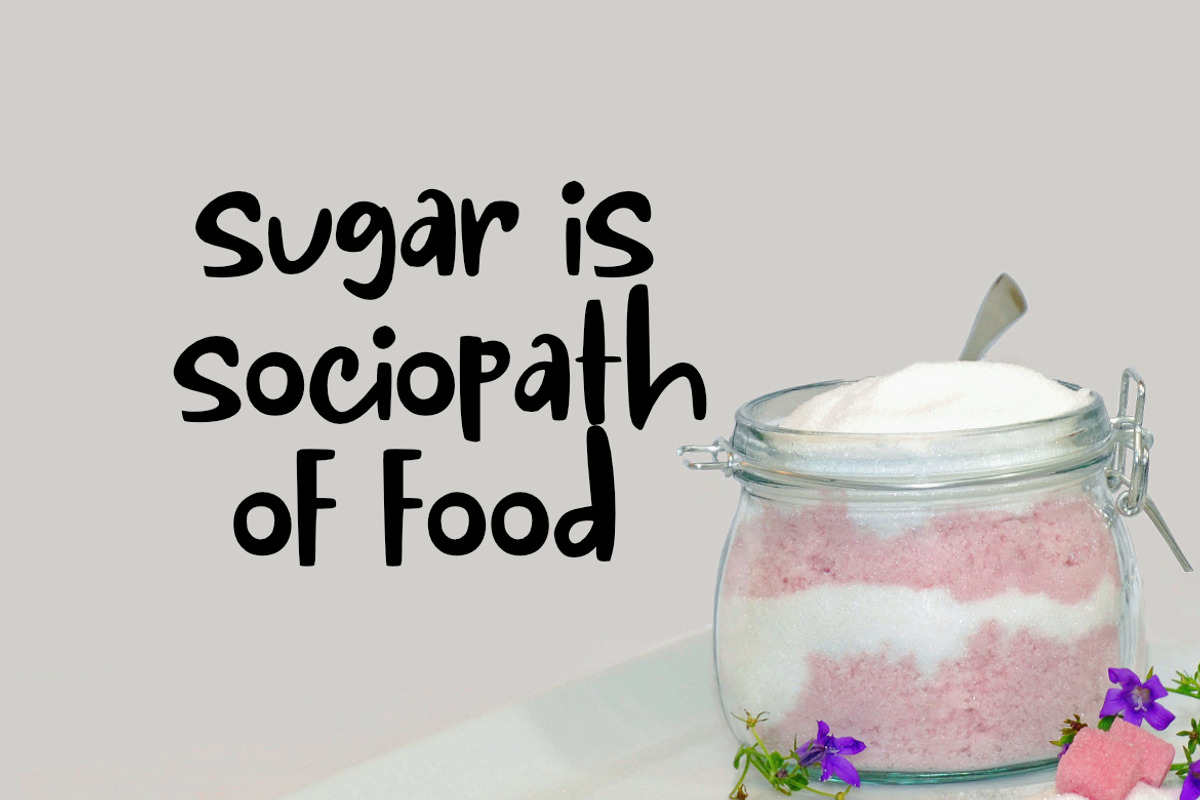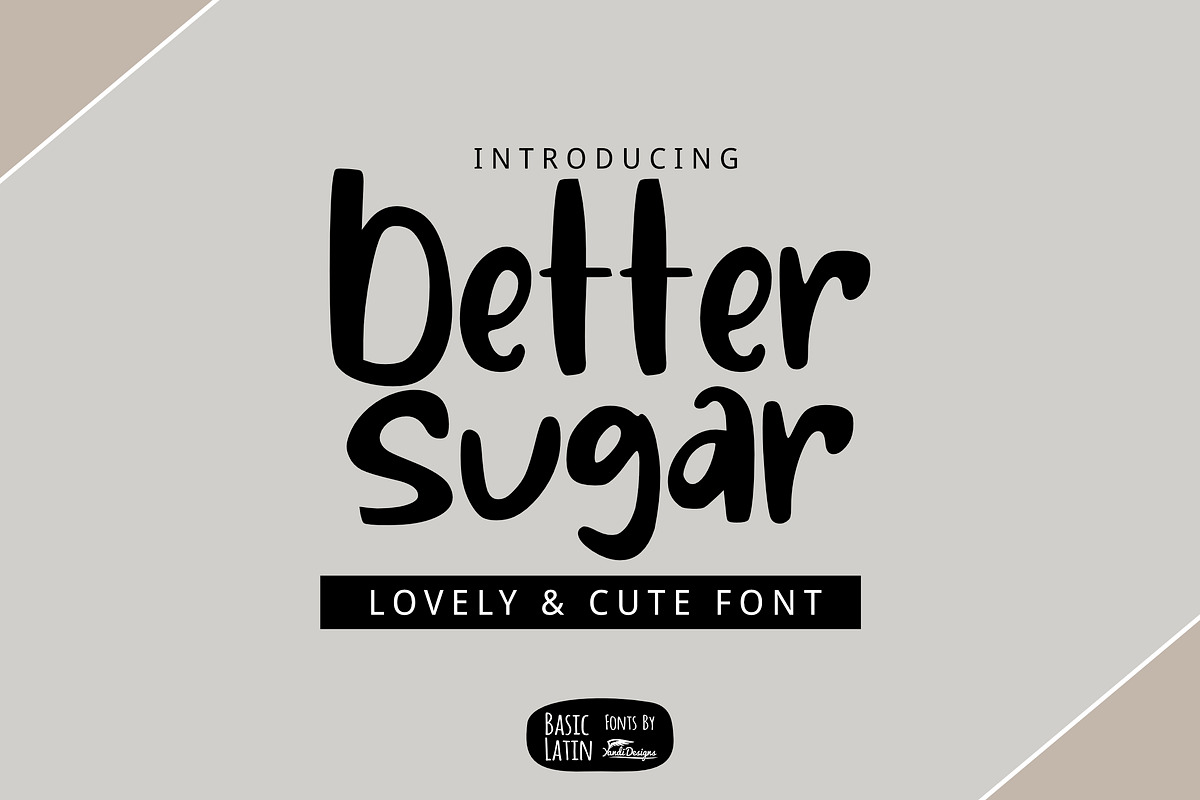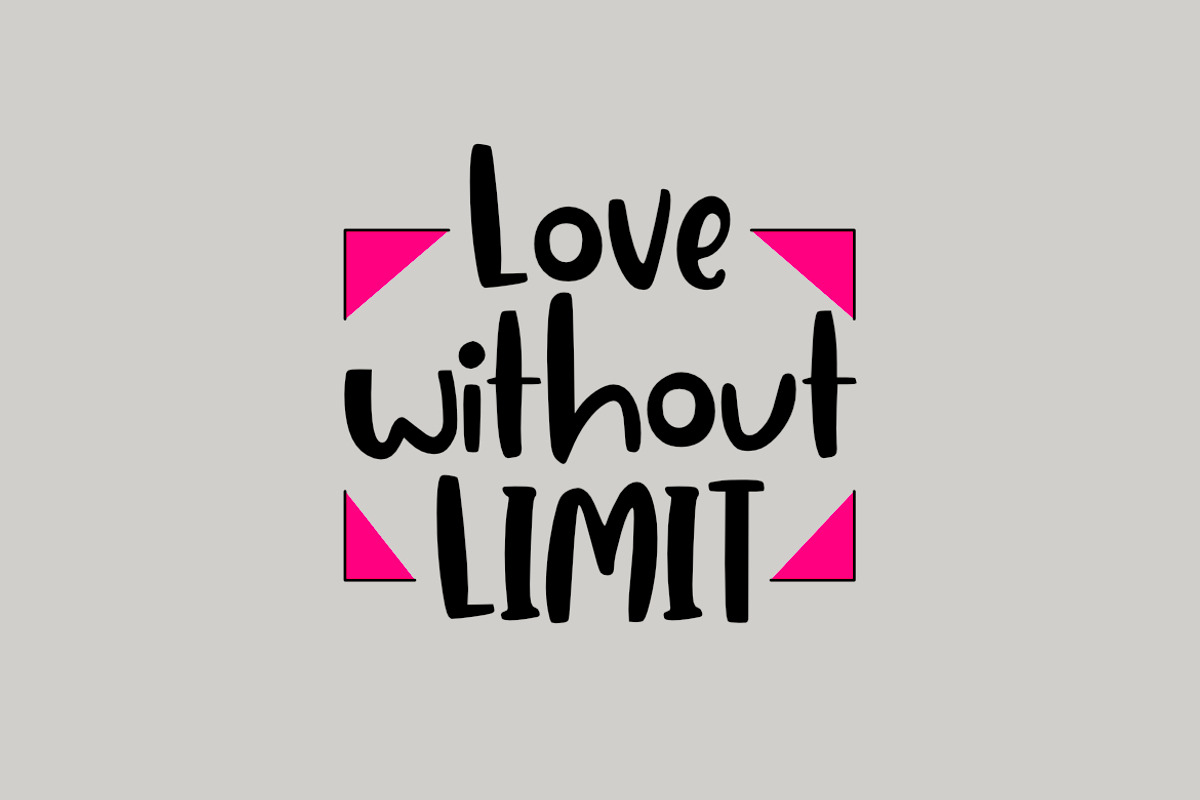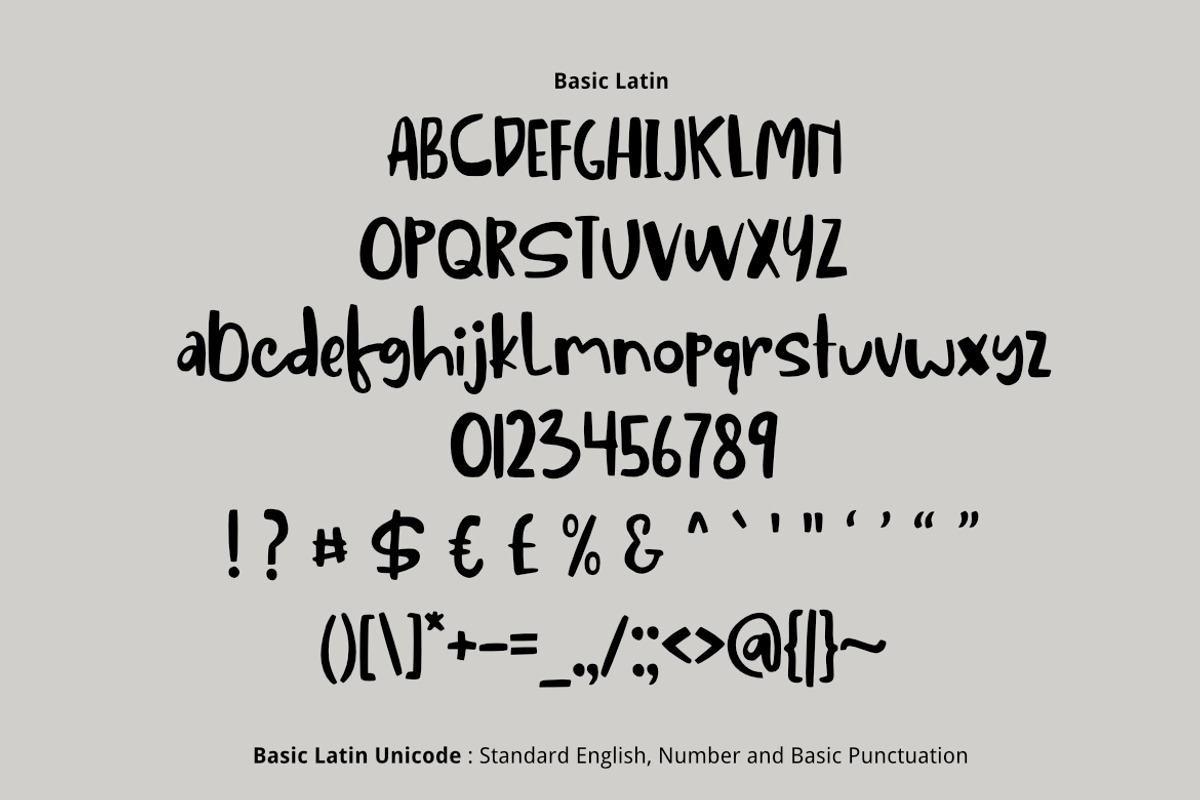
Better Sugar Font
Better Sugar font is simple cute multipurpose handmade font, suitable for many project children book, quotes, logo , heading , title etc.
Better Sugar Font by YandiDesigns fits naturally into Branding, posters, packaging, typography.